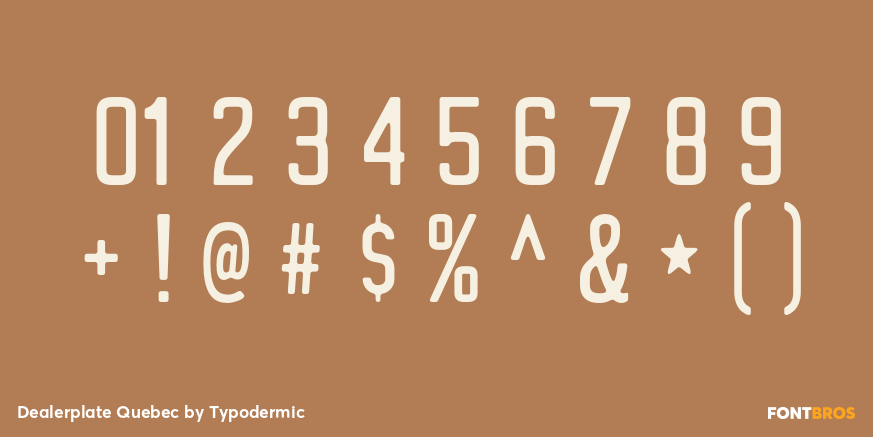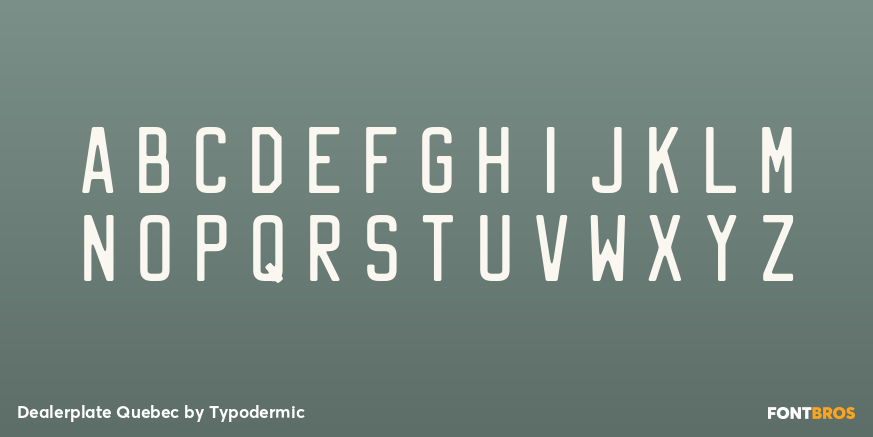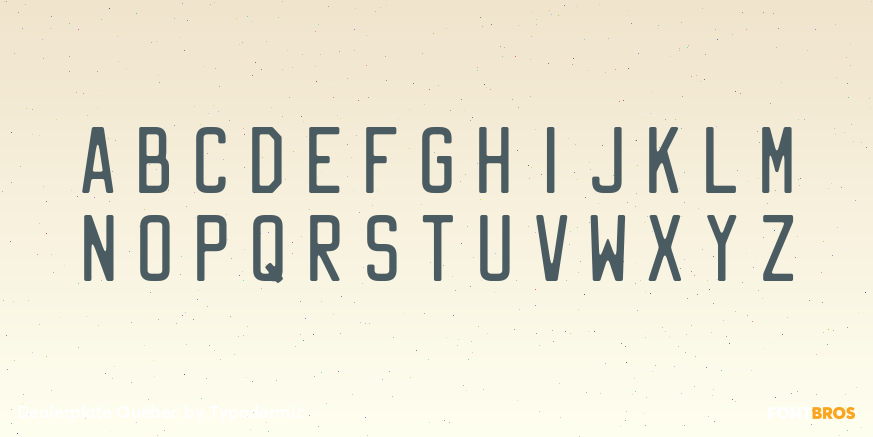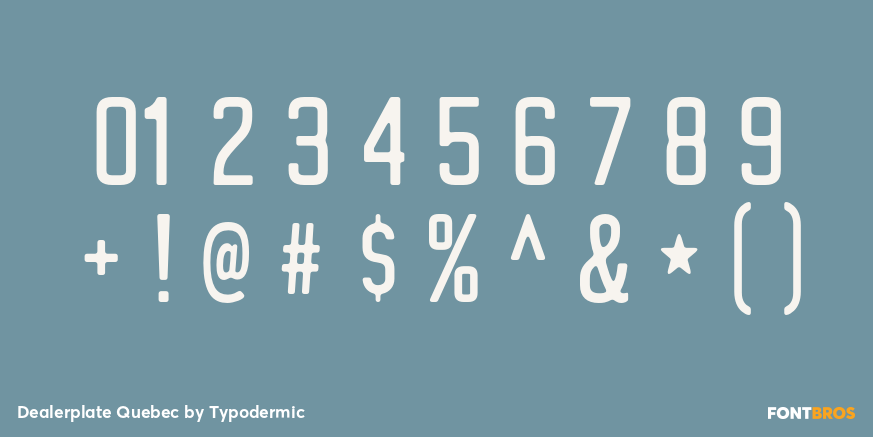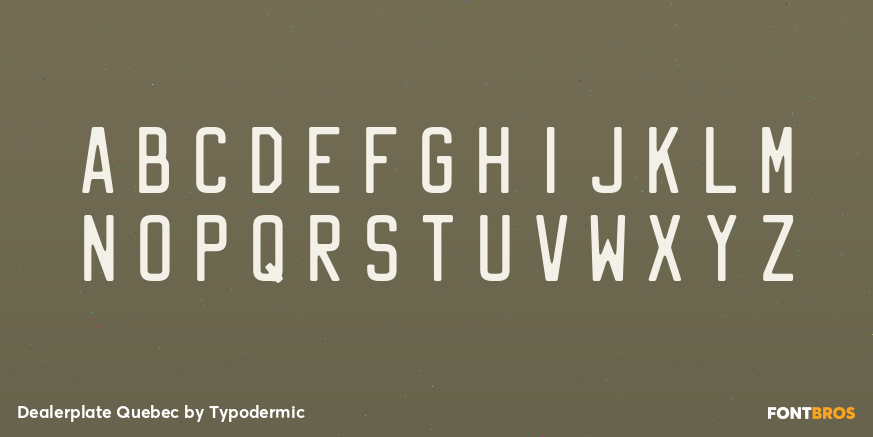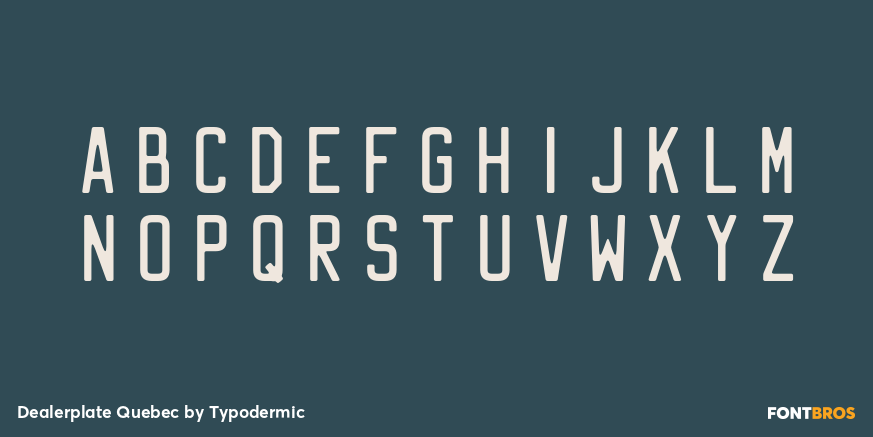
Dealerplate Quebec
Dealerplate Quebec expands Quebec-inspired plate lettering into a complete alphabet for French-Canadian vehicle props and digital environments. It allows designers to create invented registrations, names, and related labels while preserving a recognizable Quebec regional cue beyond the few characters shown on an actual plate.
Use it for Montreal productions, Quebec road stories, French-language police props, driving games, virtual-production traffic, evidence boards, impound records, parking permits, and automotive heritage exhibits. The style helps a hero plate coordinate with case-file captions, registration material, garage signage, and vehicle-selection screens, giving the fictional setting a more deliberate Quebec identity.